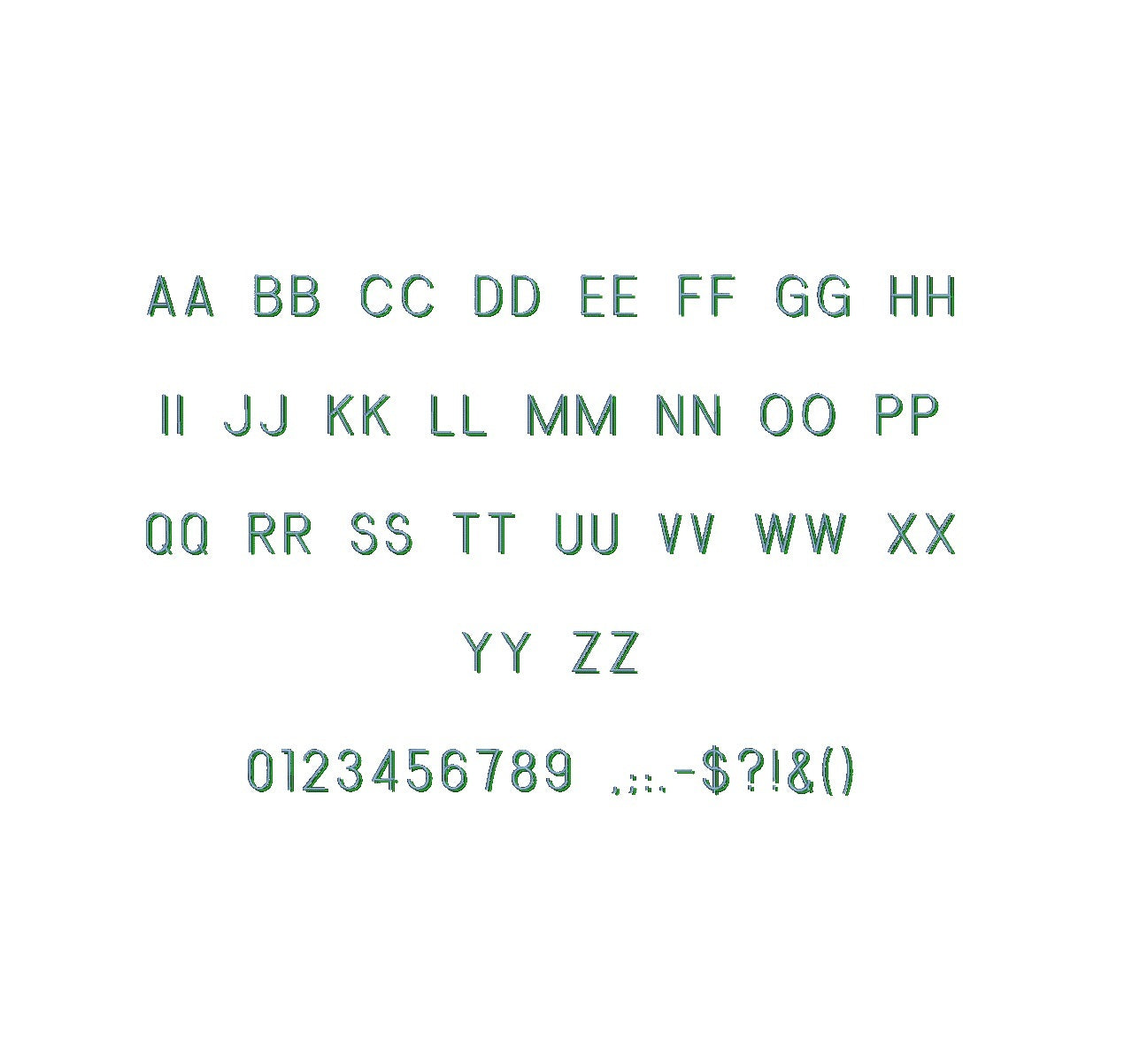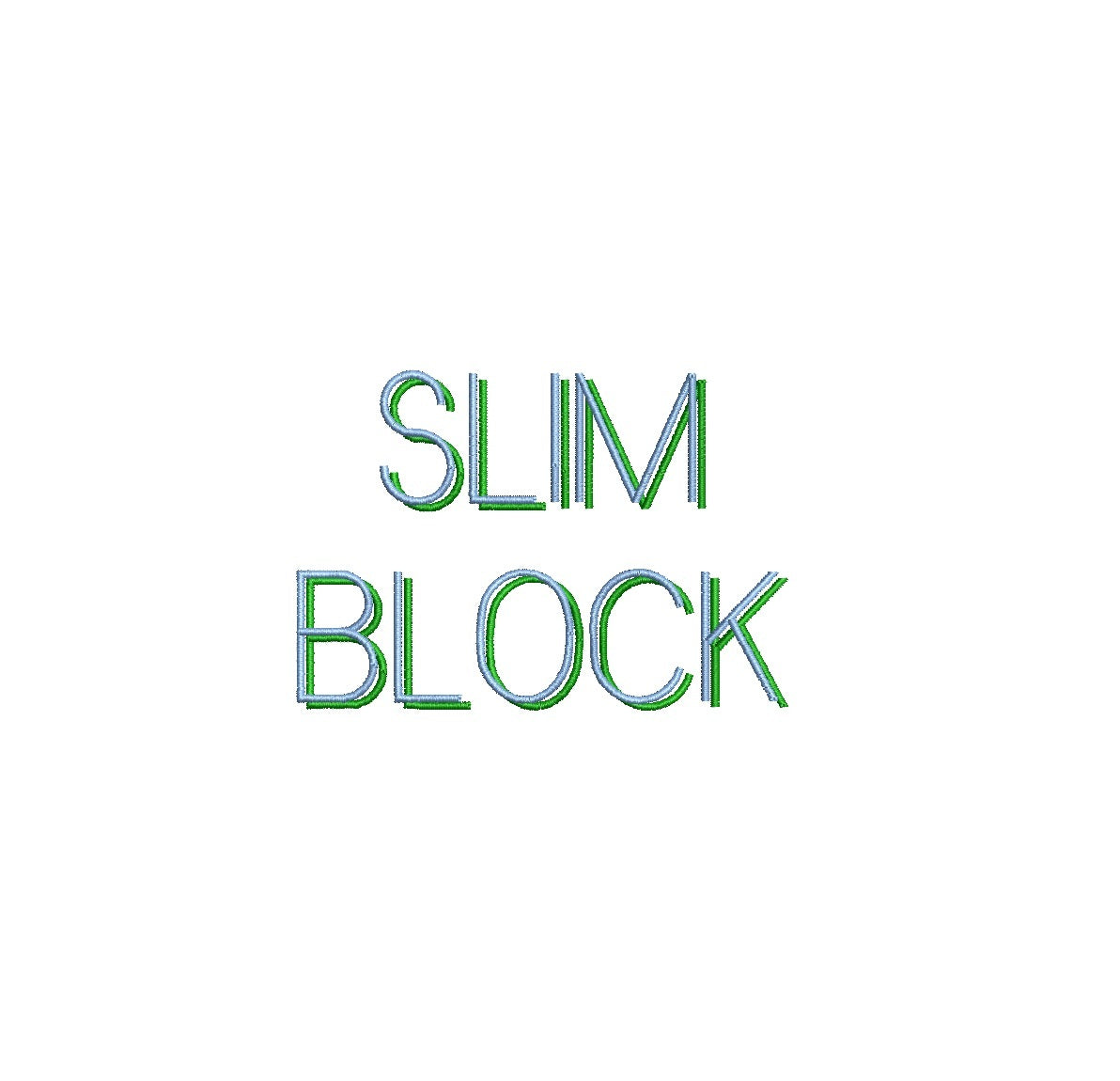
Elevate your embroidery with the modern Slim Block Shadow ESA font. Crafted for Wilcom Studio e4.5.6 and Hatch 3 versions and newer, this font effortlessly combines sleek design and compatibility. Create striking designs with its bold shadow effect, adding depth and impact to your lettering. Perfect for diverse applications, from contemporary monograms to impactful text layouts. Unleash your creativity as Slim Block Shadow ESA font enriches your embroidery. Elevate your designs and make a lasting impression. Choose this font to infuse your creations with bold elegance that stands out, redefining your embroidery artistry.